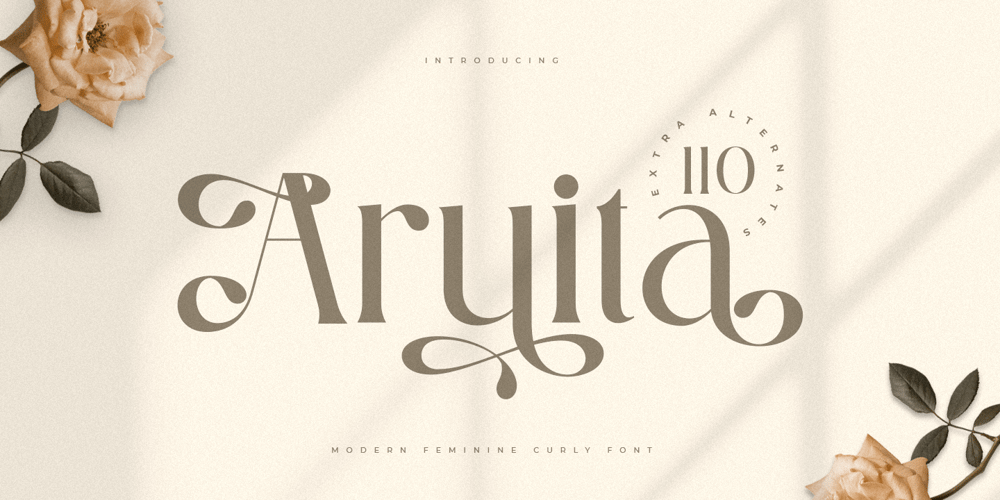
Aruita
Aruita font
Aruita Font Family was designed by Zamroni Hamzah and published by Sensatype Studio. Aruita contains 1 styles and family package options. A Luxury Modern Feminine Curly Font that we created special for elegant branding needs, with unique shape will be ready to add value of your brand. It. We prepared any characters to help you create unlimited variations for your creative needs.Aruita Luxury Modern Feminine Curly Font ready with: Unique Beauty Characters wit swash as alternates inside Preview as a inspirations that you can do with Aruita font Ready with Lowercase and Uppercase characters Wish you enjoy our font. 🙂